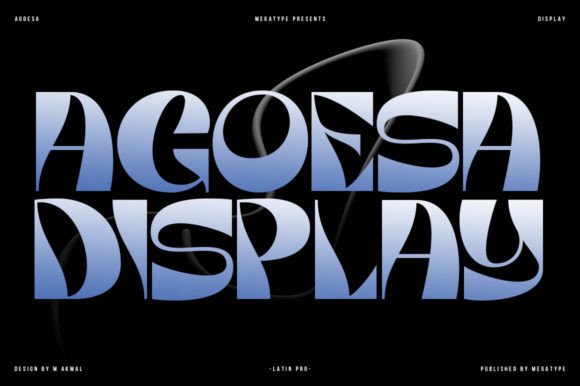
The Ultimate Guide to Agoesa Font: Elevate Your Designs with this Modern Display Font
An Honest Review of Agoesa Font
So, what makes Agoesa Font so special? Let’s dive into the good stuff and a few quirks I’ve discovered.
- ✅ Perfect blend of modernity and trendiness: Agoesa Font has a fresh, contemporary feel that’s perfect for a wide range of design projects.
- ✅ Versatility: Whether you’re creating digital designs, presentations, greeting cards, or crafting projects, Agoesa Font is an excellent choice.
- ✅ Ease of use: This font is incredibly easy to read and works well in various sizes, making it perfect for both headings and titles.
- ✨ Aesthetic appeal: The unique lettering and stylish alternates make Agoesa Font a standout in any design.
While Agoesa Font is amazing, there are a few things to keep in mind:
- ⚠️ Legibility at small sizes: Like many display fonts, Agoesa can get a bit tricky to read at very small sizes. It’s best used for titles, headings, or large text.
- 🤔 Limited suitability for body text: Due to its design, Agoesa Font isn’t ideal for long blocks of text. Stick to using it for emphasis and headings.
The Backstory of Agoesa Font
While the exact origins of Agoesa Font are unclear, it’s easy to imagine that its designer was inspired by the latest trends in fashion and digital media. The font’s sleek lines and modern aesthetic make it a perfect fit for creatives looking to make a statement.
Q: What makes Agoesa Font unique?
A: Agoesa Font stands out due to its modern design, trendiness, and versatility. It’s perfect for a wide range of creative projects.
Q: Is Agoesa Font suitable for body text?
A: While Agoesa Font is stunning, it’s best used for headings and titles. For body text, consider a more readable font.
| Font Name | Agoesa Font |
| Author | Megatype |